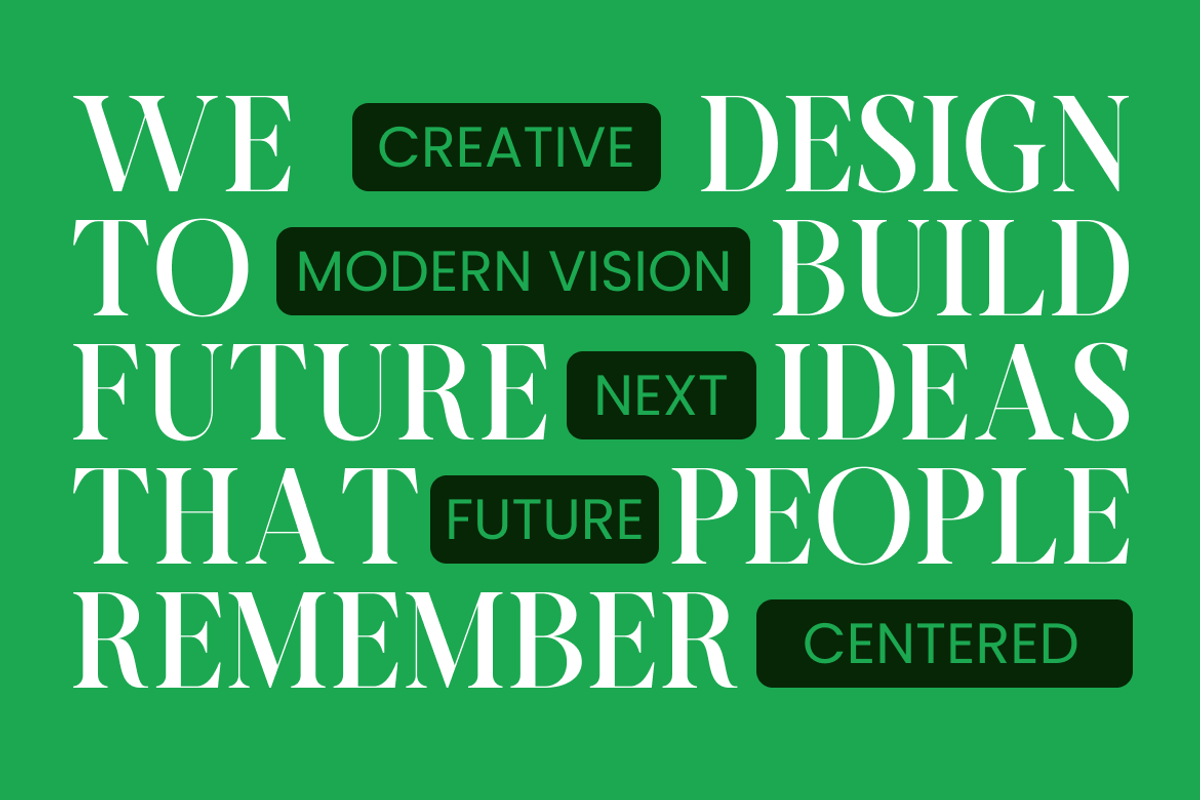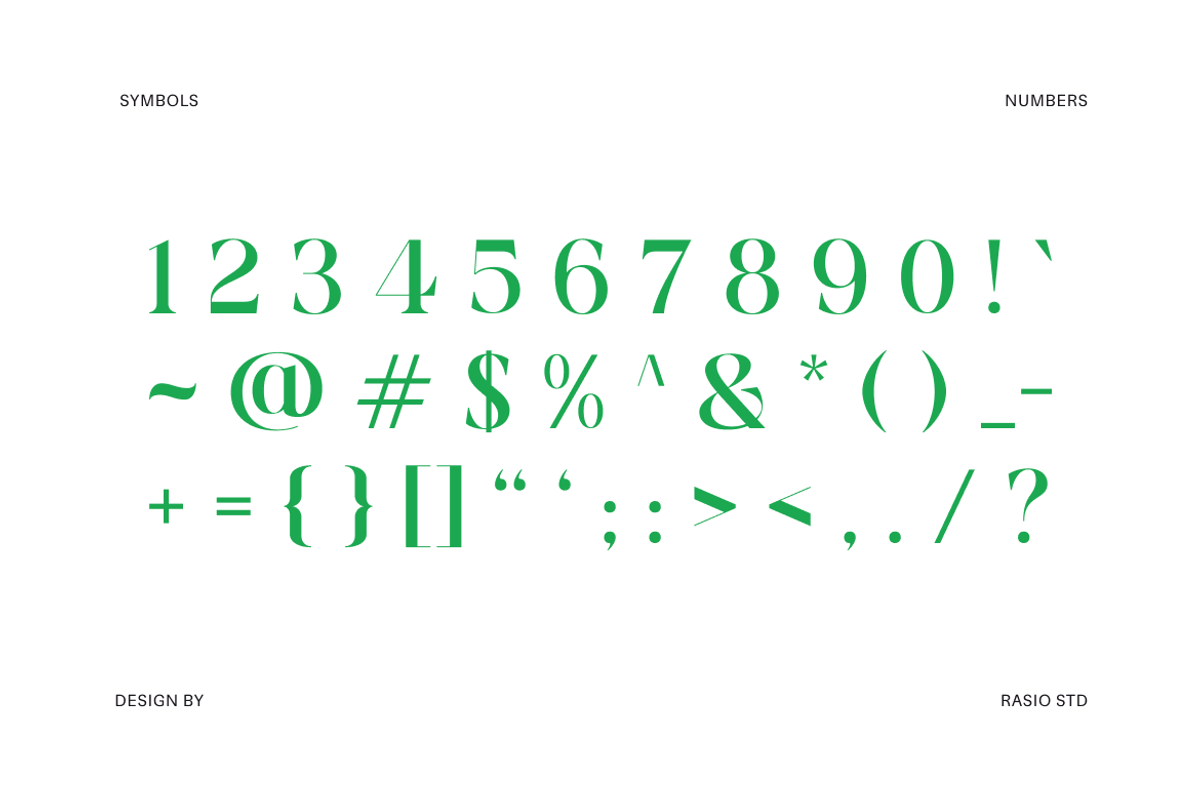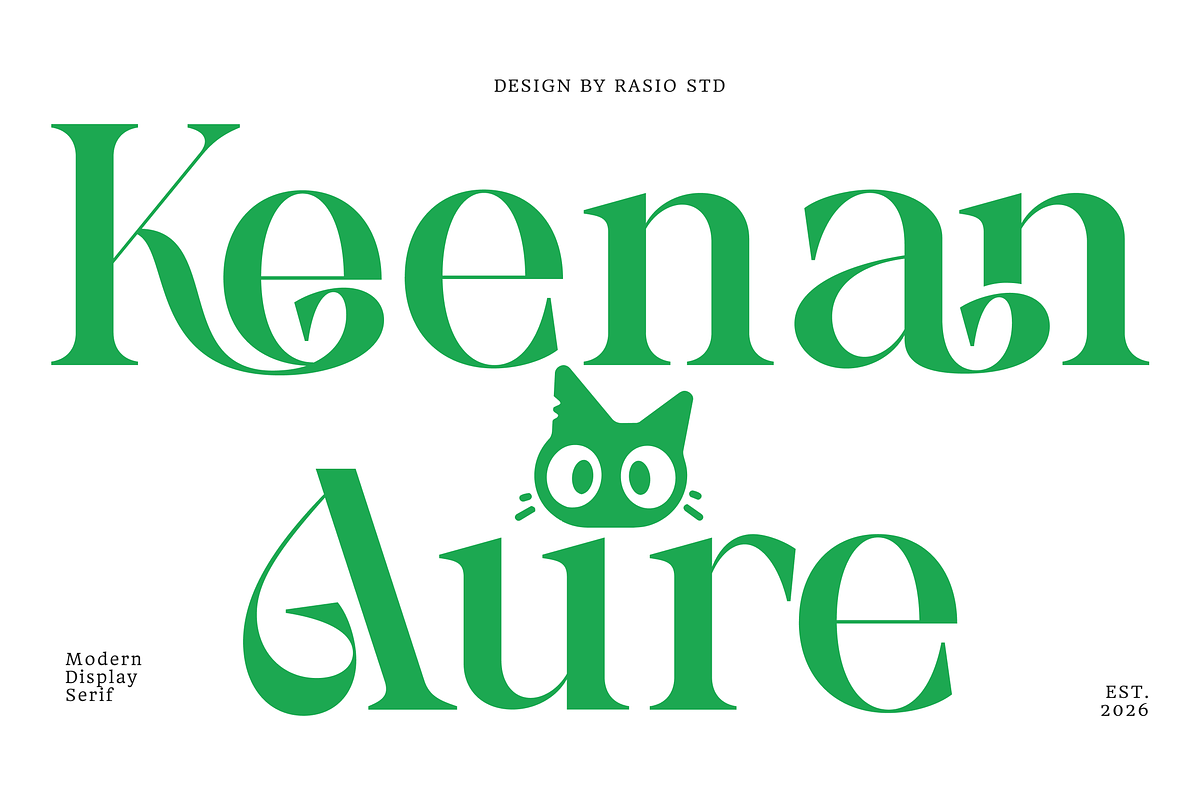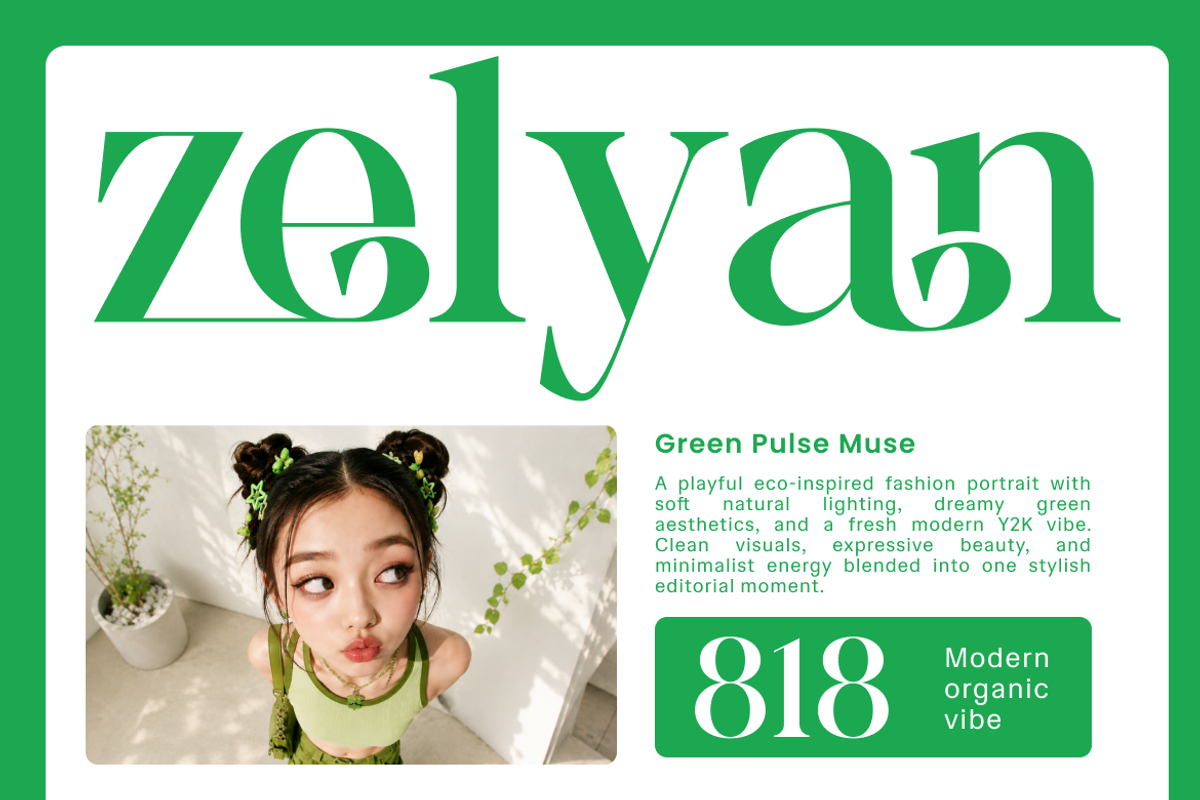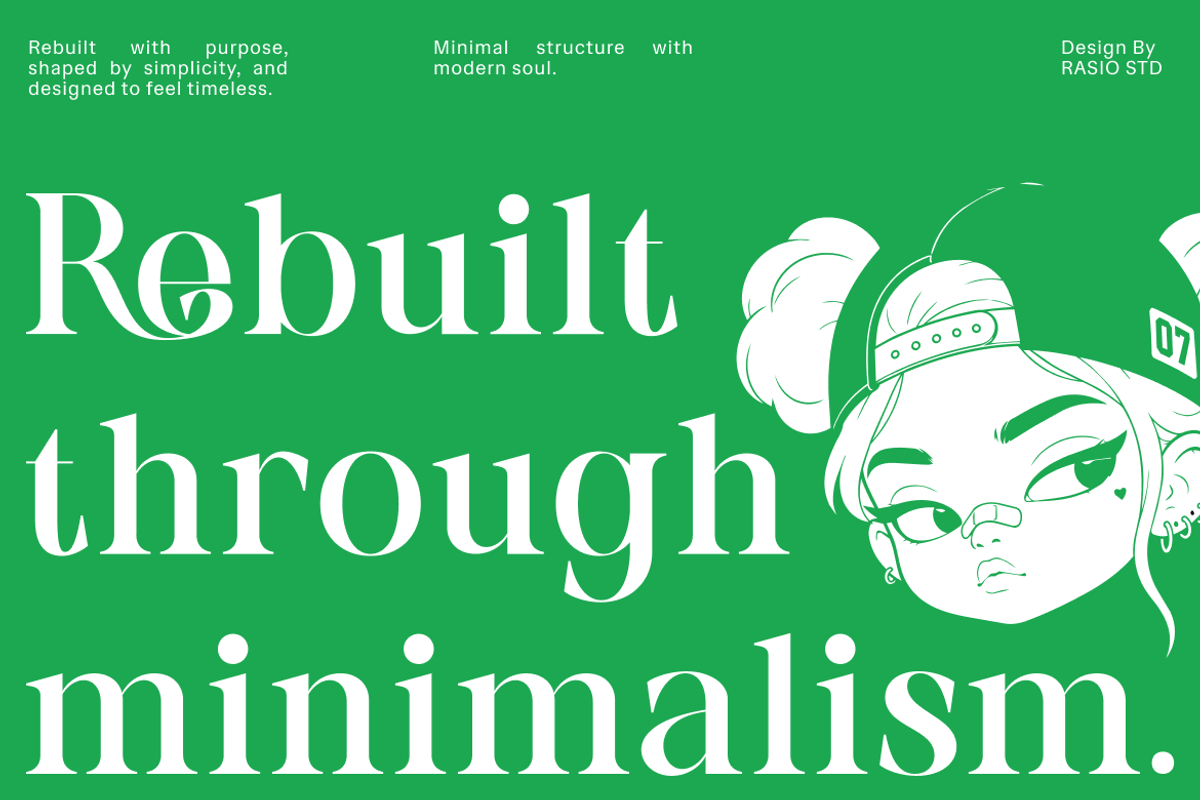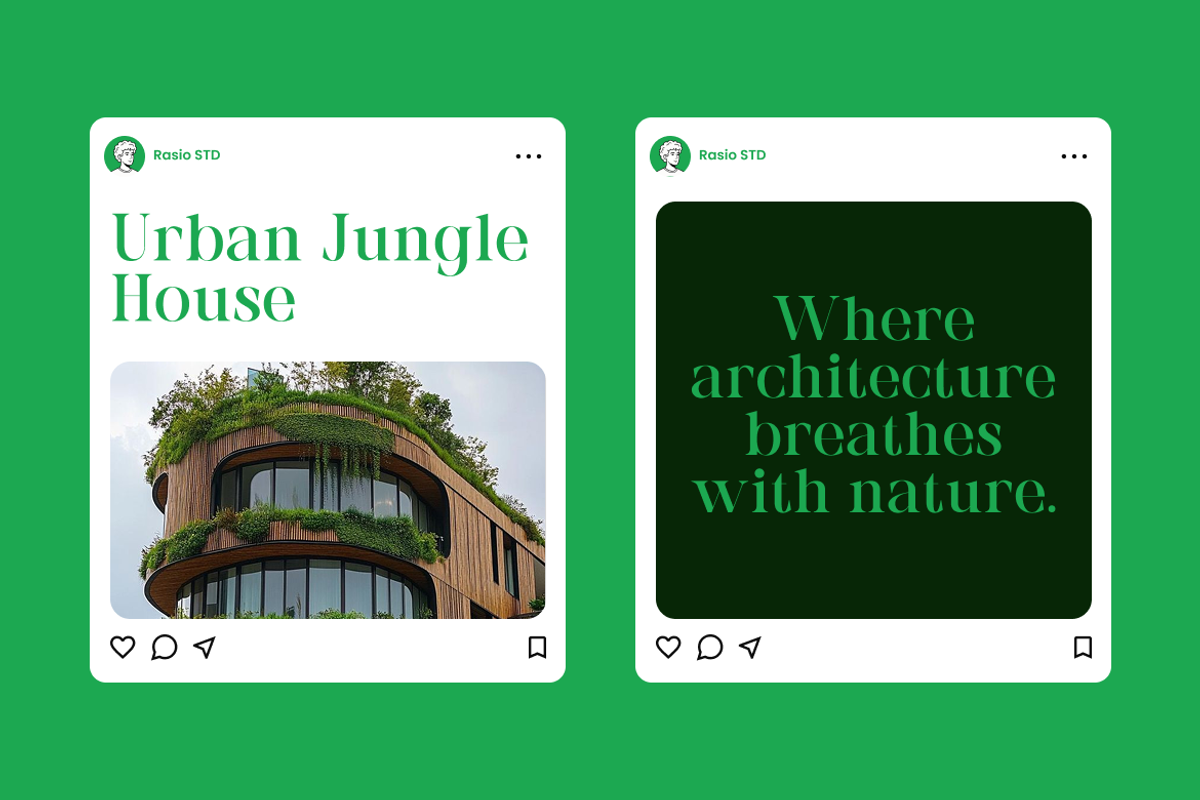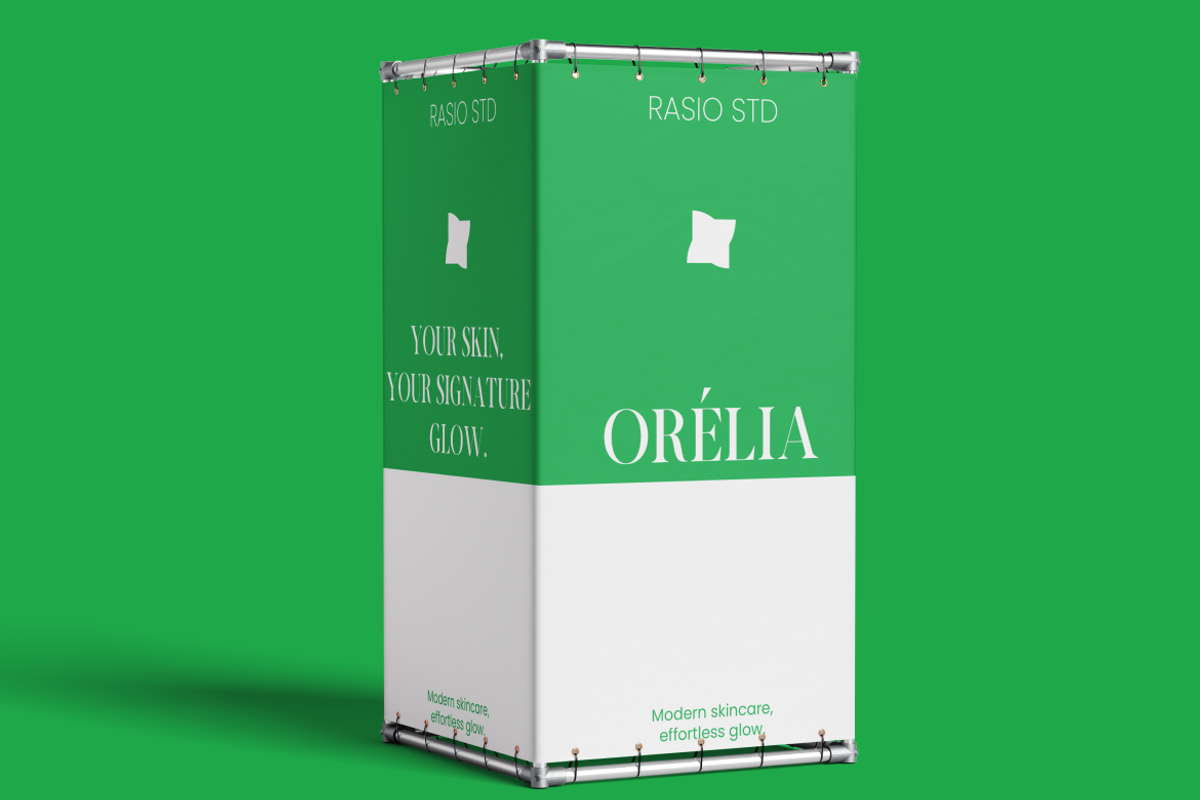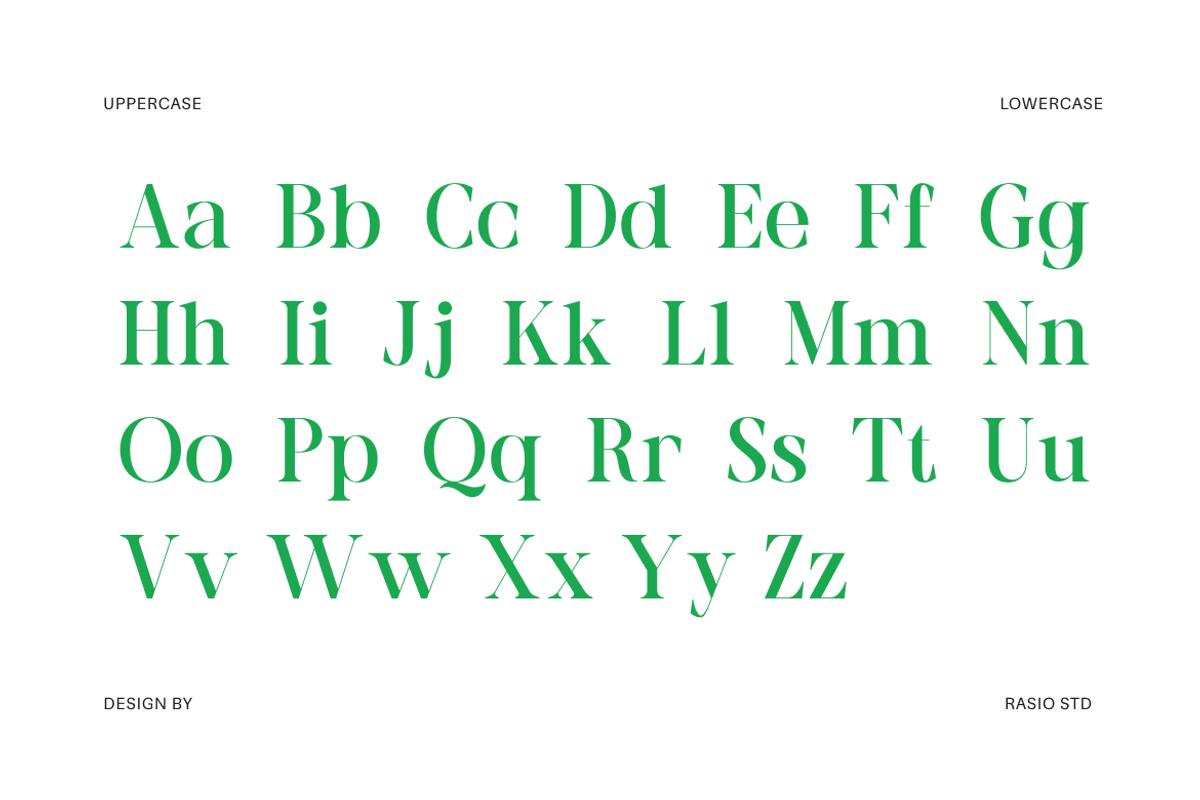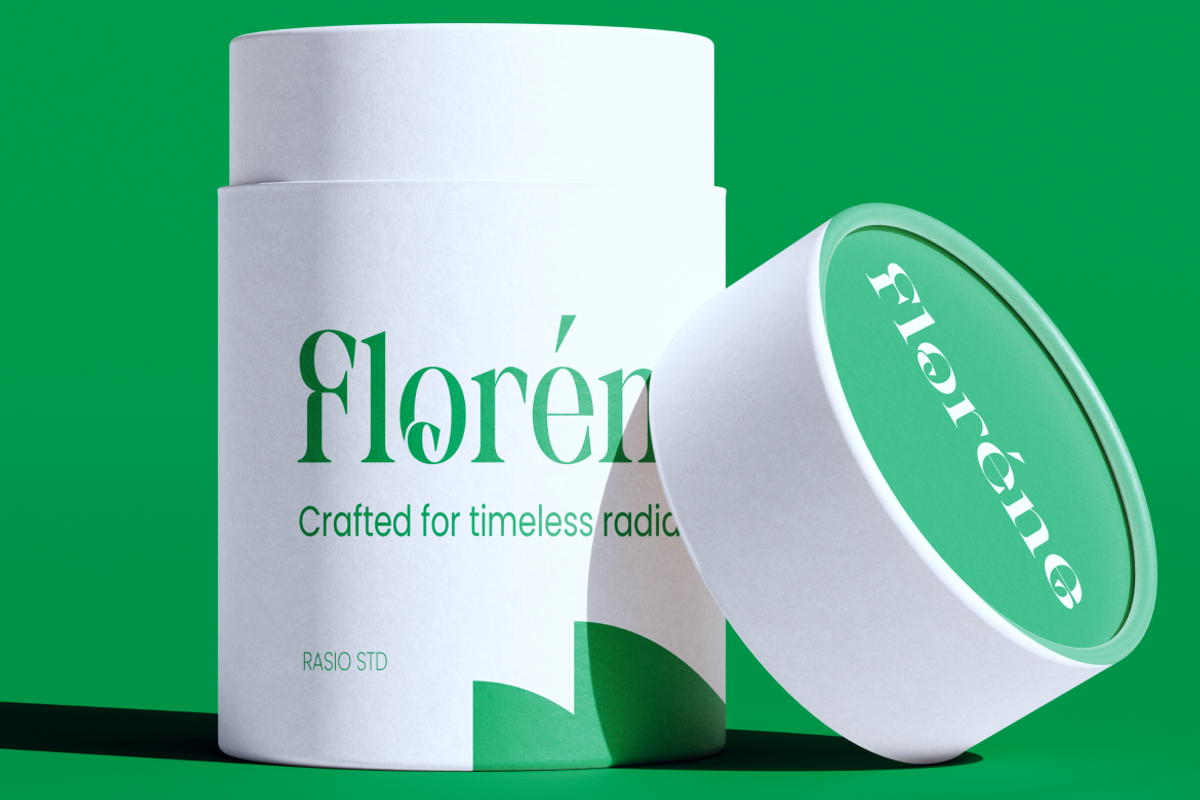
Keenan Aure Modern Serif Font
Keenan Aure is a refined serif typeface featuring elegant curves, high-contrast strokes, and stylish ligature-inspired details crafted for sophisticated visual branding. The font includes uppercase, lowercase, numerals, punctuation, providing flexibility for editorial layouts, luxury branding, logo creation, and premium typography projects. Its graceful serif construction combines timeless elegance with contemporary proportions, producing a clean yet artistic visual identity suitable for fashion, beauty, and creative industries.
Relevance & Use Cases is relevant for luxury branding, editorial publishing, fashion campaigns, beauty product packaging, premium logo design, and sophisticated marketing visuals. Its elegant letterforms and high-contrast serif style work effectively for magazine headlines, boutique identities, cosmetic branding, wedding stationery, social media graphics, lifestyle promotions, book covers, and modern creative layouts that require a refined and fashionable typographic appearance.
Elegant modern serif design with refined high-contrast strokes
Sharp curved terminals and artistic ligature-inspired details
Graceful letterforms with a luxurious editorial aesthetic
Balanced proportions that create a clean yet expressive appearance
Sophisticated spacing crafted for premium headlines and stylish branding
Luxury fashion branding and premium identity systems with an elegant editorial feel
Modern magazine layouts, beauty campaigns, and sophisticated book covers
High-end product packaging, perfume labels, and cosmetic branding visuals
Stylish social media content, creative posters, and aesthetic marketing templates
Wedding stationery, boutique logos, and elegant event promotional materials
Supports numerals, punctuation, and extensive symbol set